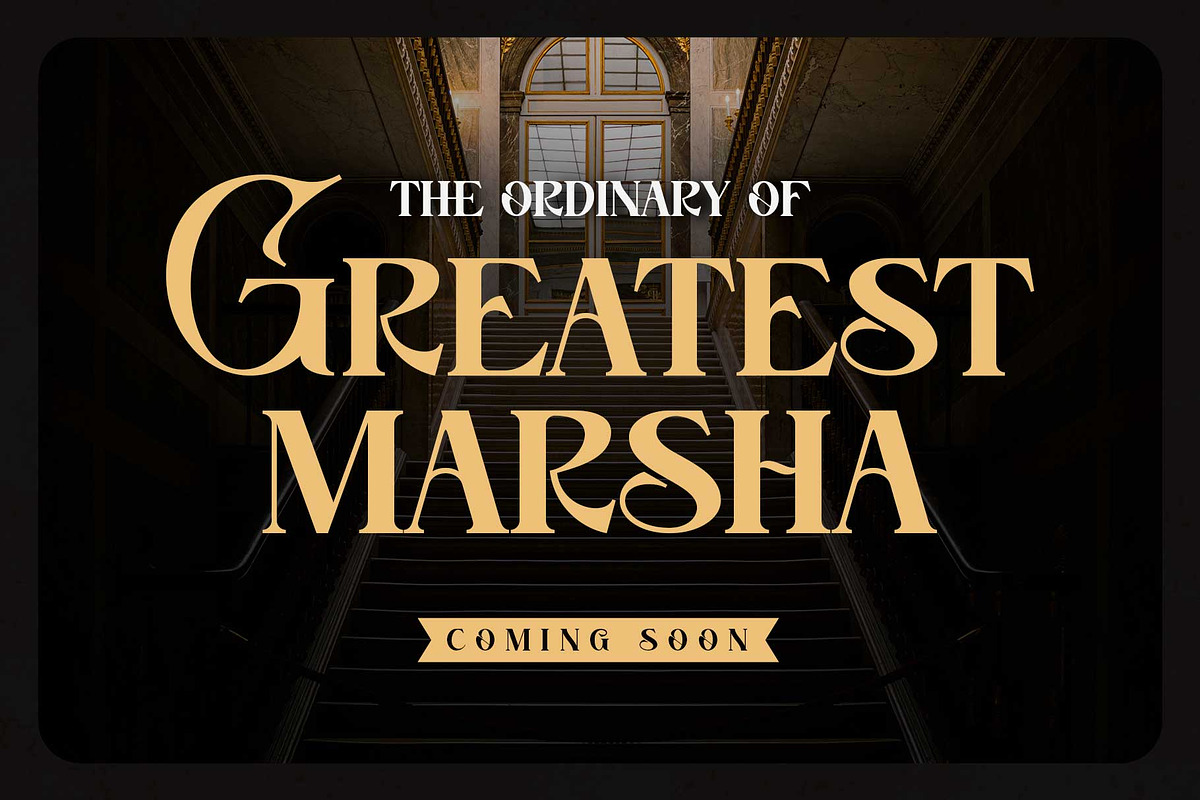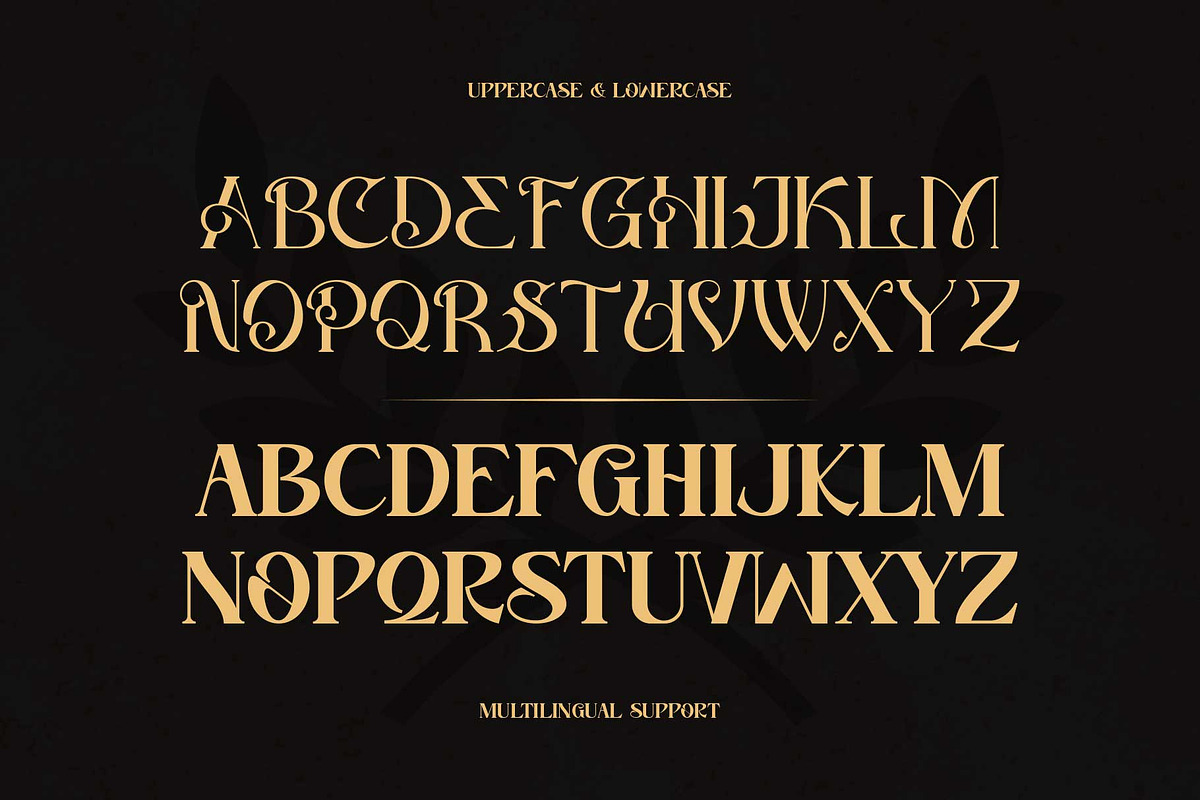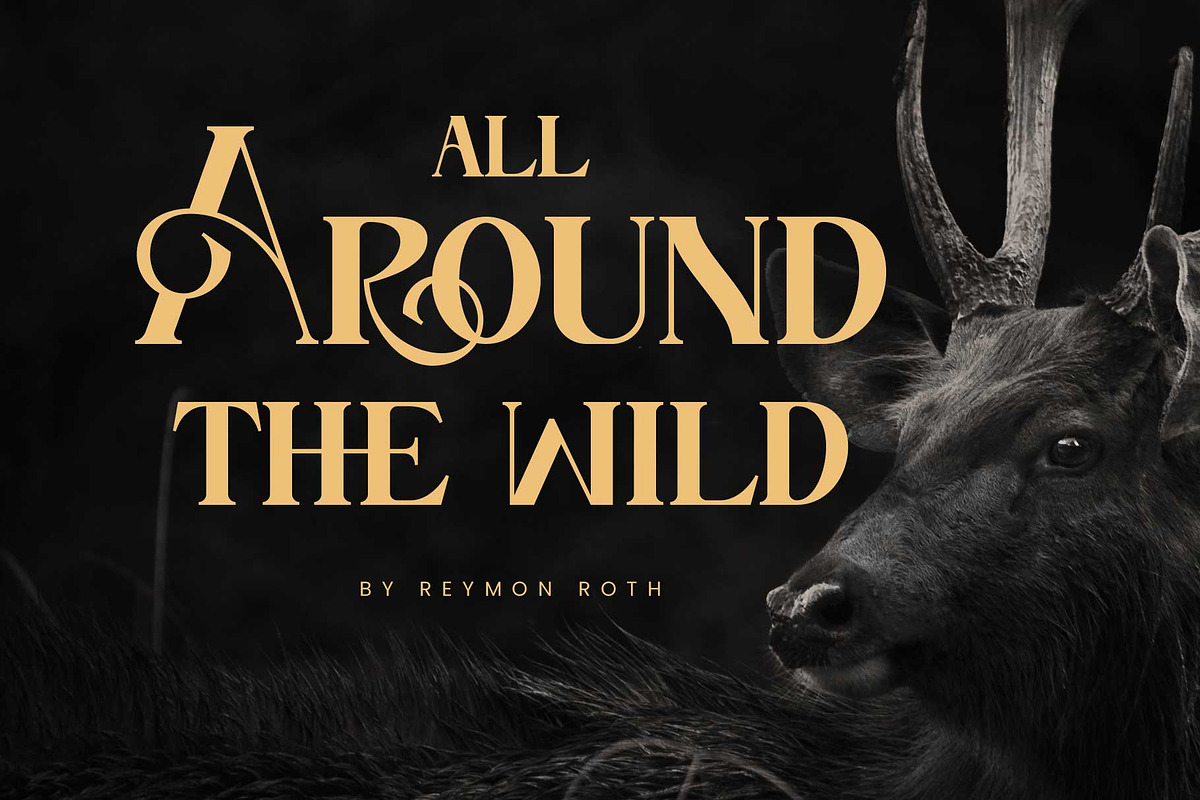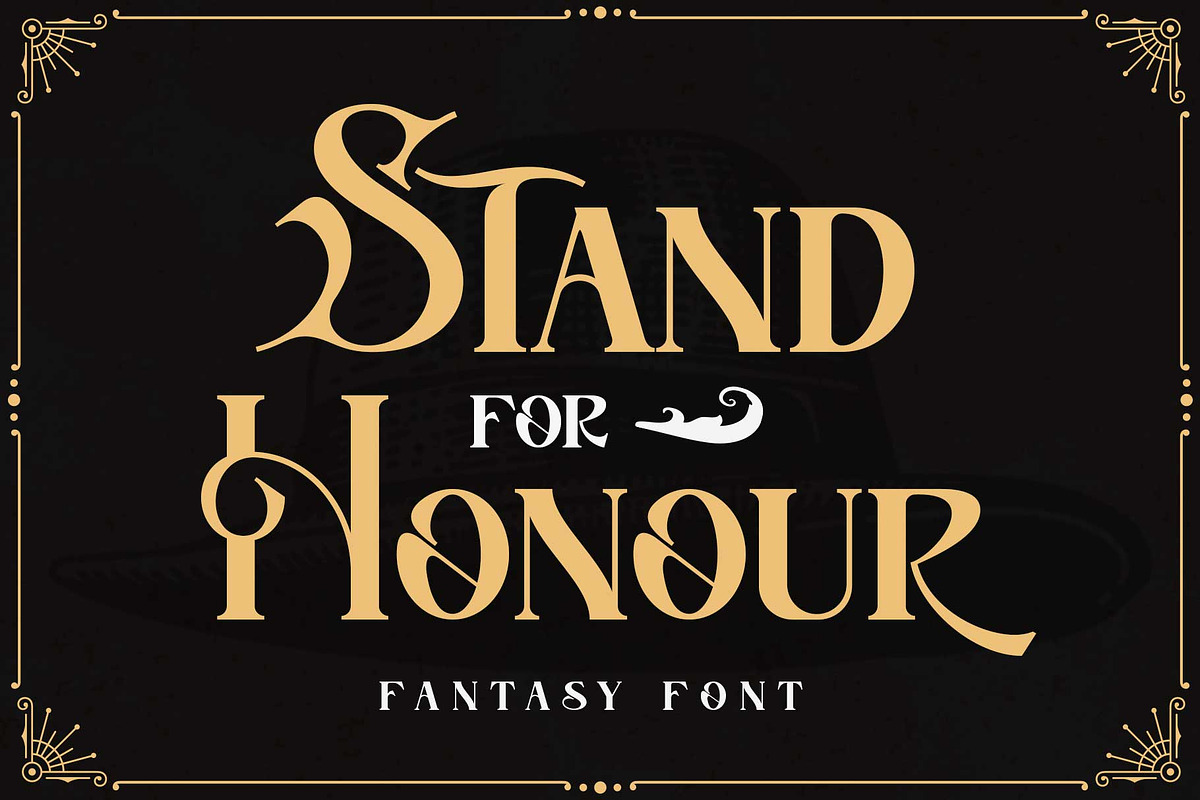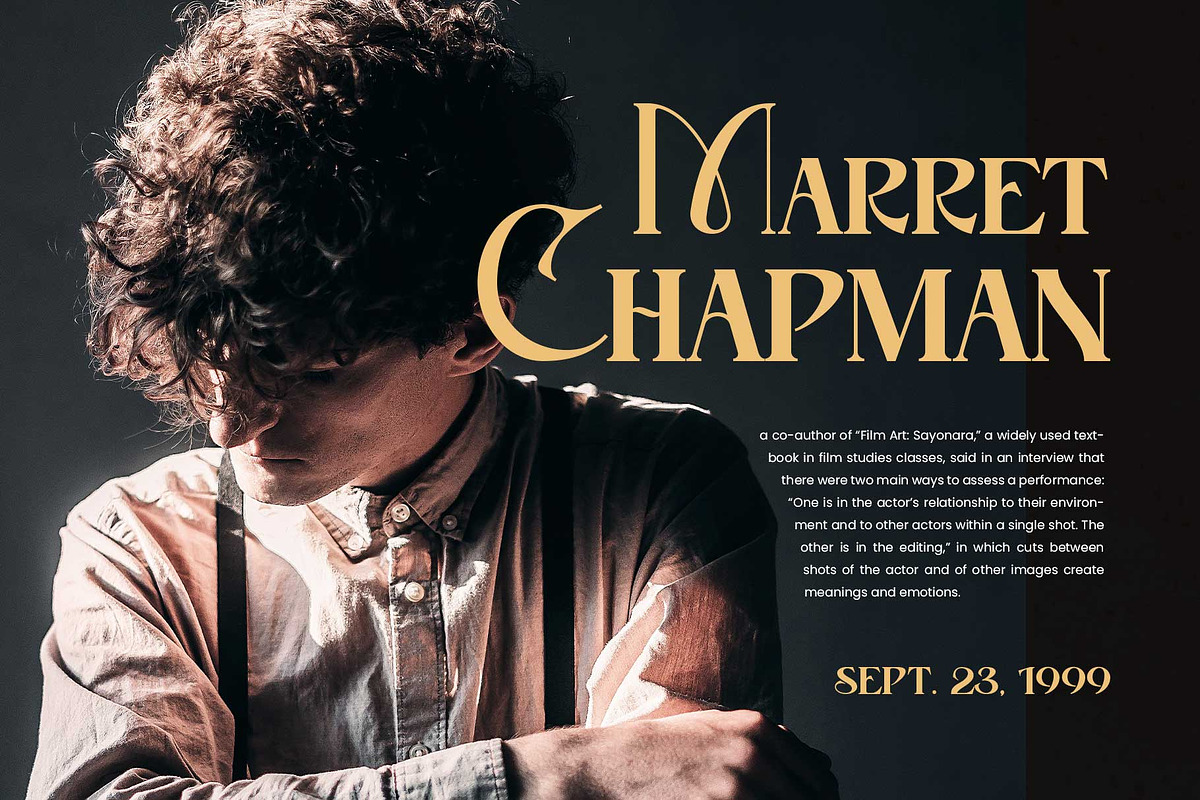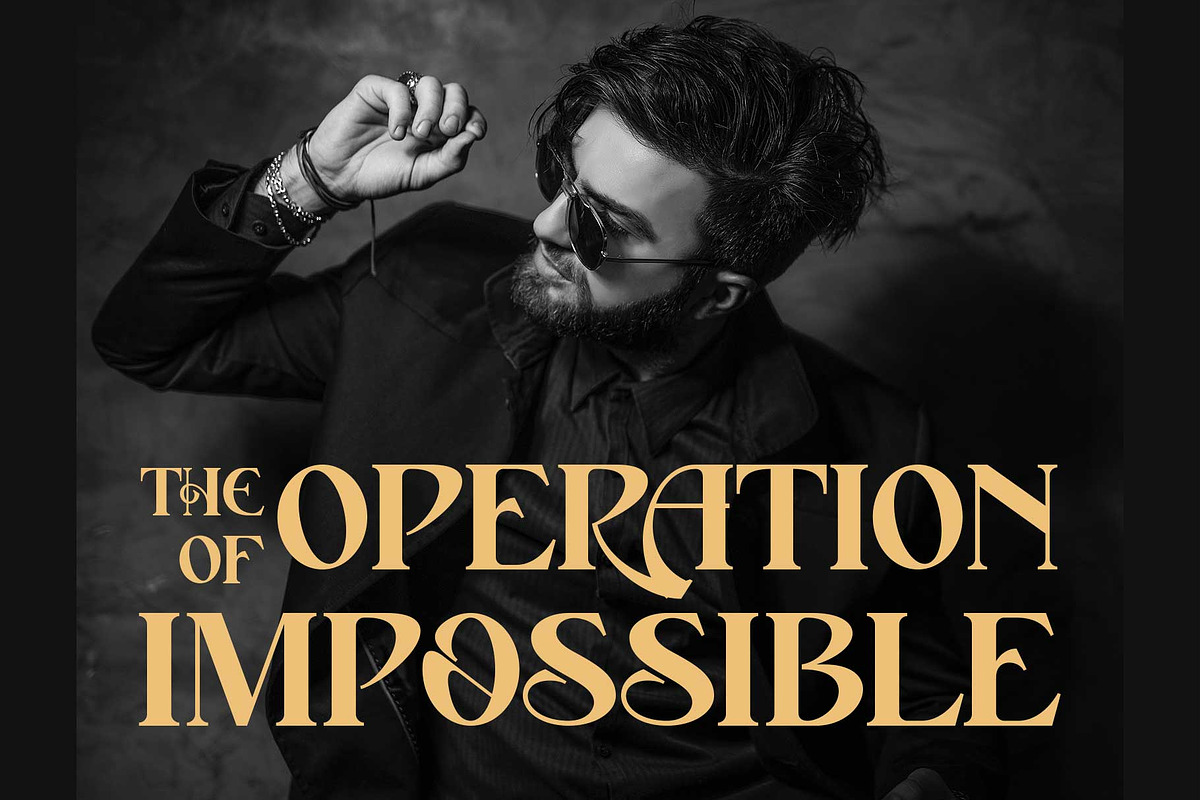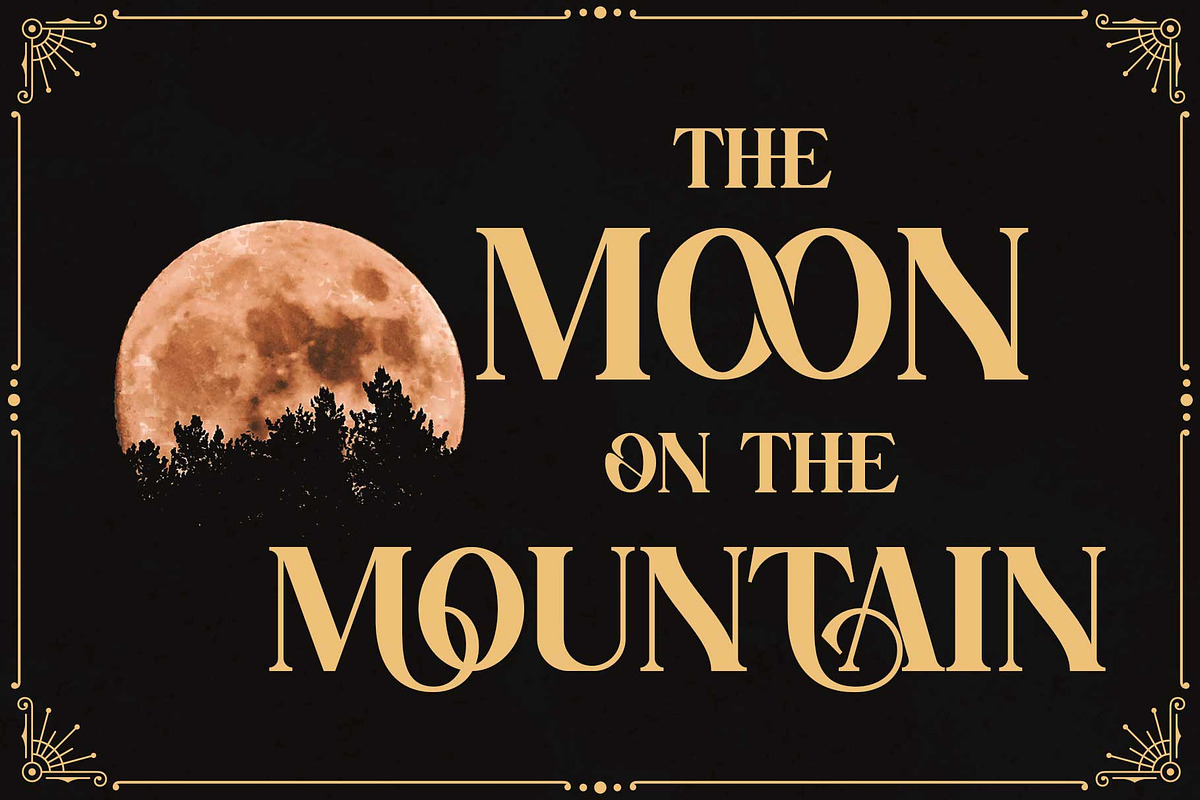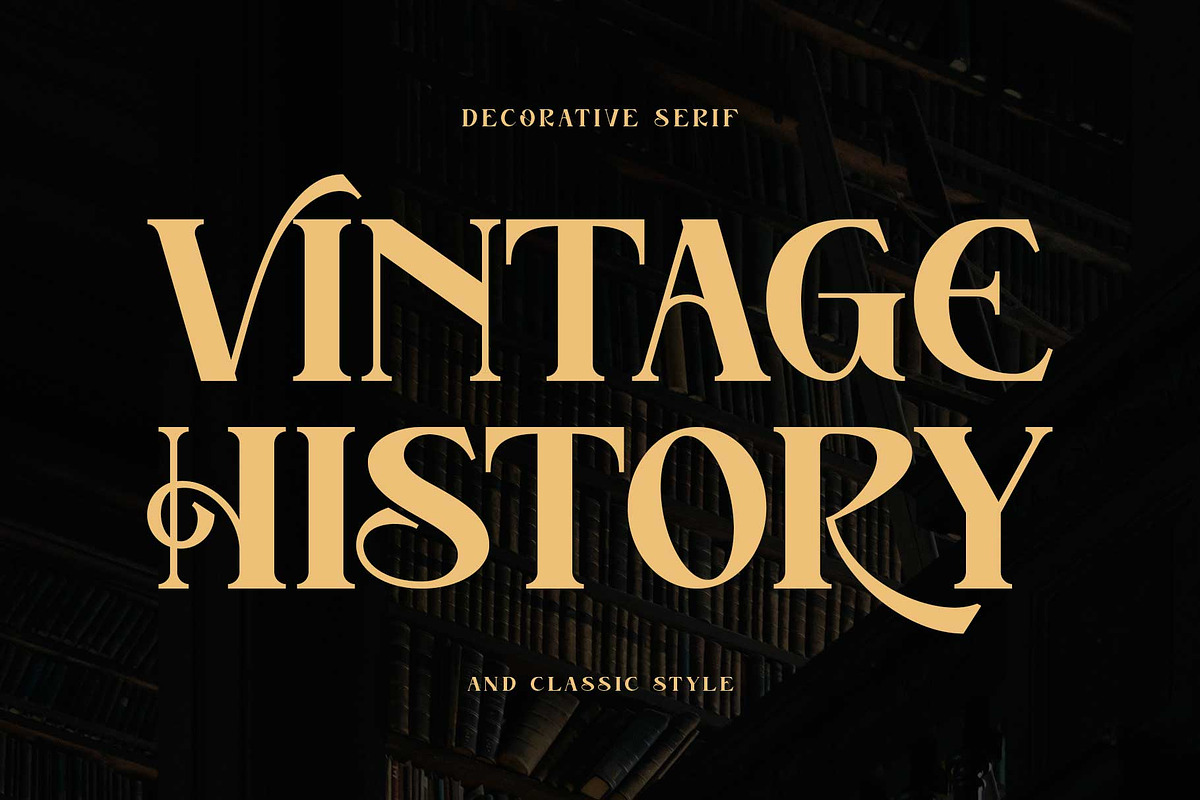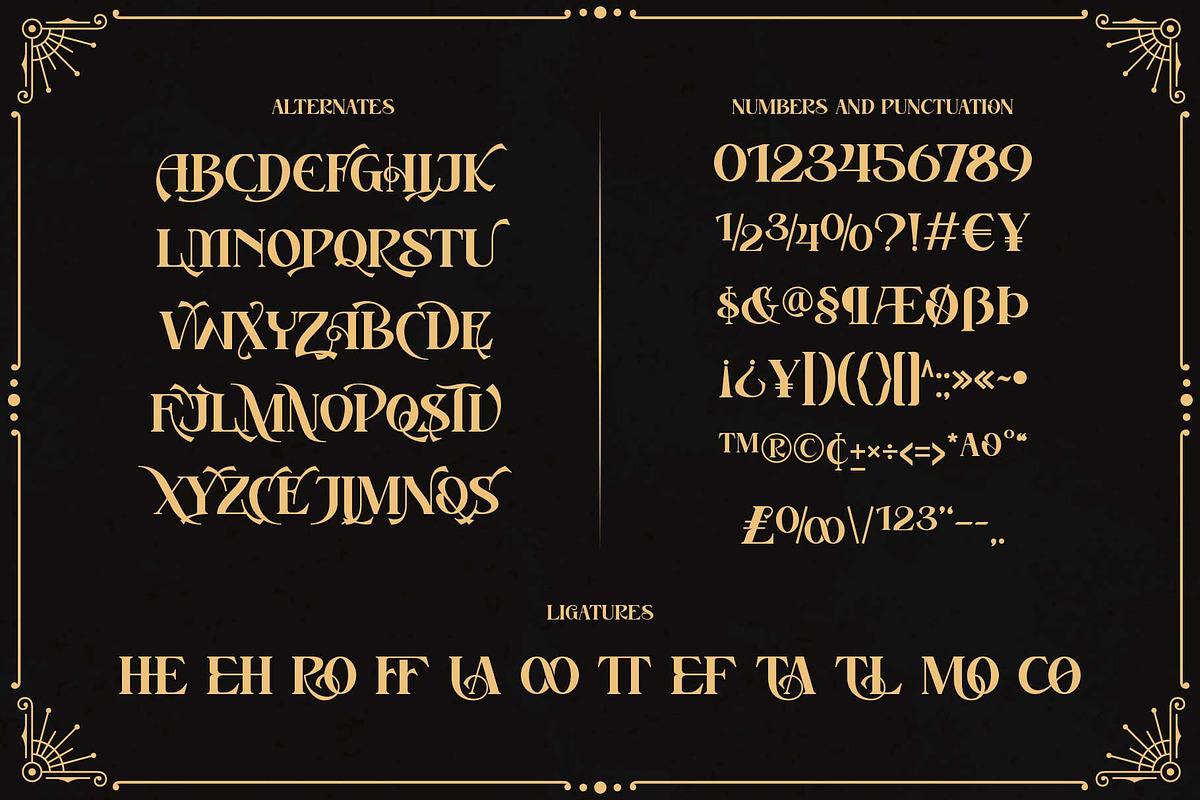
Stand For Honour
Introducing Stand For Honour, a stunning decorative serif font that embodies the spirit of colossal design, classical knights, and horror motifs. Its bold, striking appearance is perfect for creating display and headline text in magazines, movie titles, posters, and short quotes.
With lots of special characters, custom ligatures, and multilingual support, you'll have everything you need to create text that stands out from the crowd. Its decorative serif style and inspired design make it the perfect choice for anyone seeking to add an element of intrigue and sophistication to their work.
- All capitals characters
- Numbers & punctuations
- Stylistic alternates
- Custom ligatures
- SS01-SS02